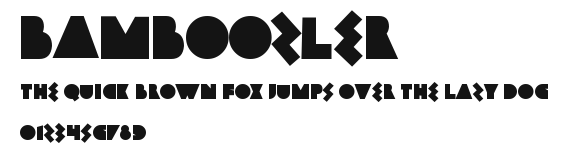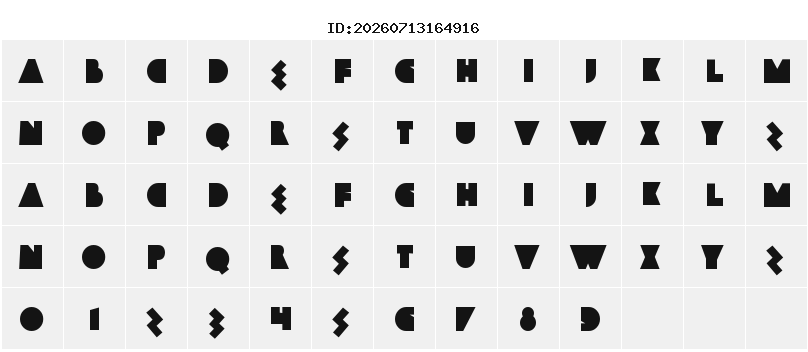
Bamboozler Preview
• Font Name: Bamboozler
• Full Font Name: Bamboozler
• Version: Version 1.00 June 3, 2014, initial release
• Designer: Andrew McCluskey
About Bamboozler.otf
Bamboozler.otf is a modern, elegant sans-serif font designed for ultimate readability and visual harmony. Perfect for branding, headlines, web design, and print materials.